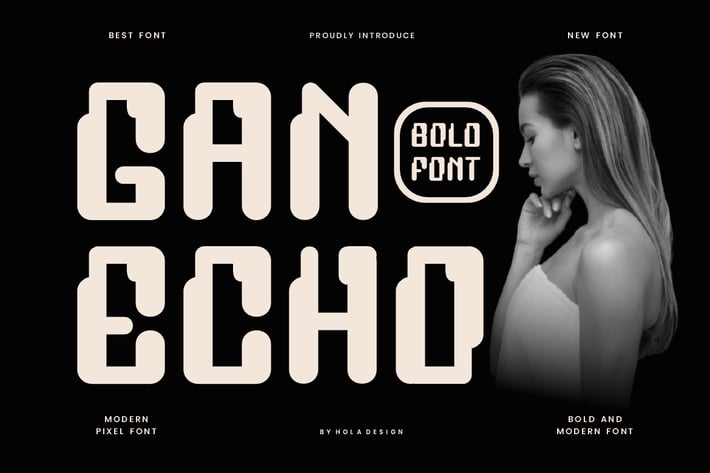
Ganecho - Pixel Font
Ganecho - Pixel Font is unique . Ready to use for your design like labeling, movie sceen, poster, movie title, gigs, album covers, logos, and much more.